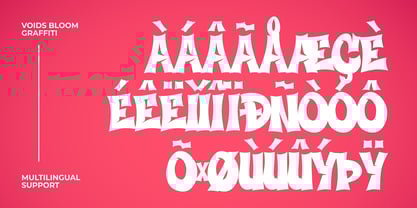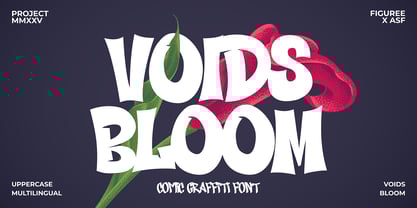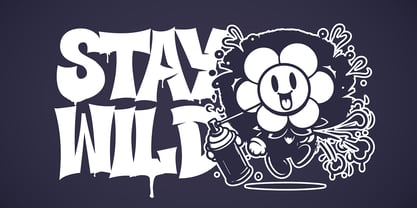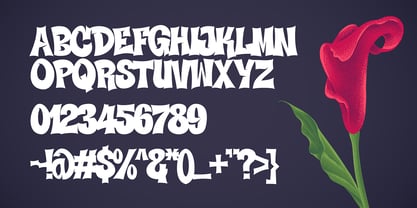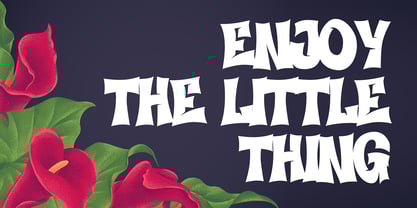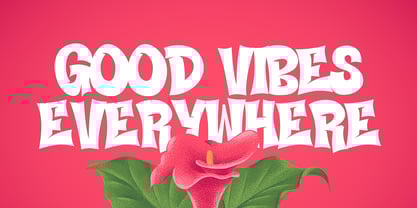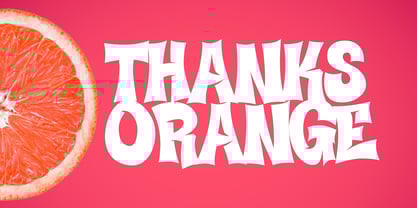
Voids Bloom
by Figuree Studio
The Voids Bloom Font Family was designed by Icep Anwar Fadhil and published by Figuree Studio. Voids Bloom contains 1 styles. More about this family
Unleash creativity with Voids Bloom, a vibrant comic graffiti font that fuses bold street art with playful energy. This font is perfect for adding a dynamic and expressive touch to your projects.
🎨 Urban Flair Meets Comic Vibes: Voids Bloom combines the edgy charm of graffiti with the fun and approachable style of comic art, making it a standout choice for posters, digital art, and branding.
🖌️ Unique Lettering Style: Each character is crafted with bold strokes and dynamic shapes, capturing the lively essence of street culture while maintaining legibility and flow.
🔥 Versatile and Eye-Catching: Whether you’re designing for urban events, video game titles, or creative campaigns, Voids Bloom delivers an impactful, modern aesthetic that resonates with all audiences.
Bring your designs to life with Voids Bloom—a bold font that’s as energetic and expressive as the streets!
Designers: Icep Anwar Fadhil
Foundry: Figuree Studio